Modern Tropical Font Duo Logo Script
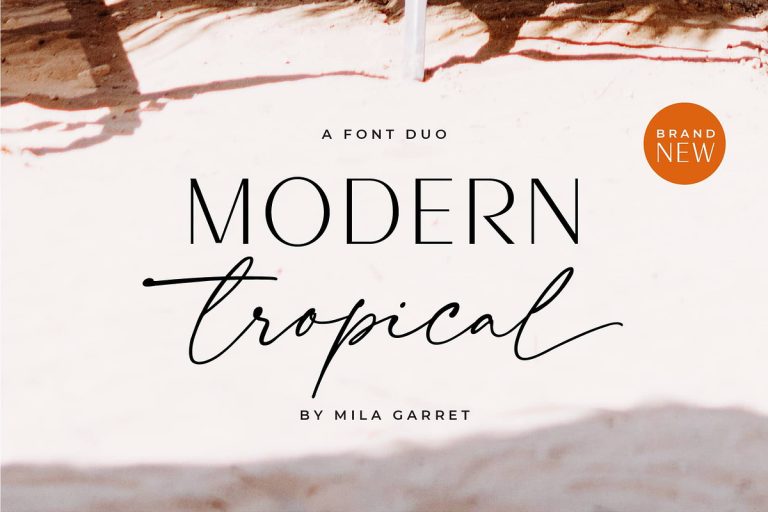
Introducing Modern Tropical Font Duo — where crisp modernity meets the soulful artistry of hand-drawn elegance. This isn’t just a font pairing; it’s a designer’s shortcut to stunning visual impact. Perfectly balanced and thoughtfully crafted, this duo delivers a luxurious,…
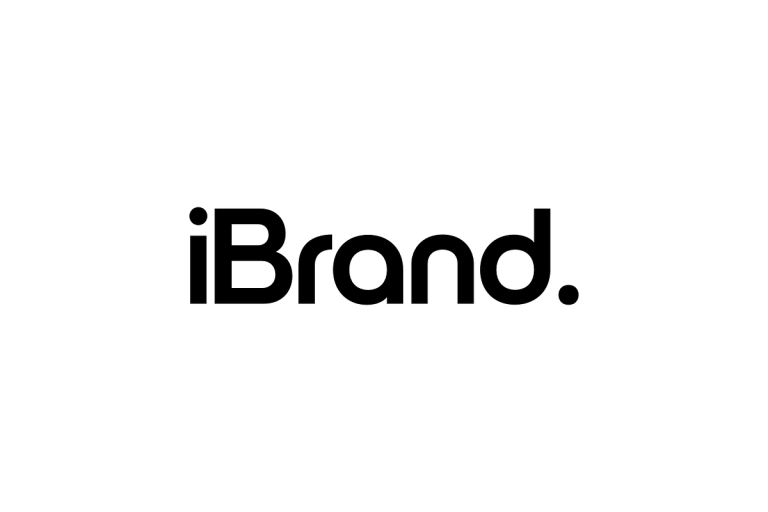
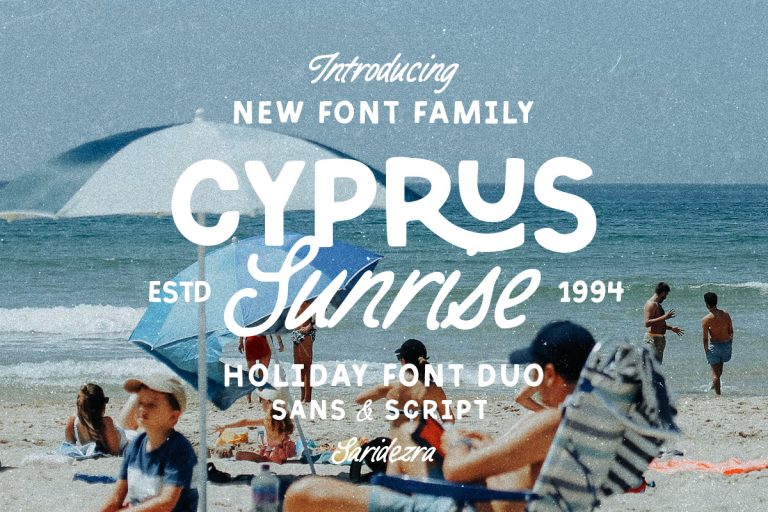iBrand – Logo Font
Introducing iBrand Font — a meticulously engineered typeface built to dominate the world of logos, branding, headers, and titling. This is not just a font; it’s a strategic design tool for creatives who demand visual authority and flawless execution. Every…
Cyprus Sunrise – Holiday Font Duo
Step into the world of raw, authentic design with Cyprus Sunrise, a hand-lettered font duo that captures the soul of handmade craftsmanship. This organic, artisanal typeface is not just a collection of letters — it’s a celebration of imperfection, movement,…
Arastin Font + Extras
Meet Arastin — a display script font that captures the soul of romantic typography with a single, continuous motion from nose to tail. Each letter glides effortlessly, its outer curves uninterrupted, creating a visual rhythm that feels alive. This fluidity…
HELIXA – Clean & Modern Font Family
Step into the future of professional typography with Helixa, a meticulously crafted neo-grotesque typeface engineered for excellence in today’s dynamic design landscape. Every stroke, curve, and serif has been refined to deliver unmatched legibility, elegant structure, and versatile performance across…
Quilt & Barley
Step into a world of timeless simplicity and warm character with Quilt & Barley, a meticulously handcrafted vintage farmhouse font collection by Bruised Goods. Designed for creators who value authenticity, this typeface captures the essence of rustic craftsmanship, evoking memories…
Le French – Organic Paired Duo
Gourmet Le French presents a cohesive type family that blends organic modernity with refined elegance. This paired duo — a contemporary sans and a complementary script — empowers designers to create cohesive visual systems with confidence. The Sans provides clean…
Gimme Extra Bold Sans Serif
Gimme Extra Bold delivers a confident, high-impact voice that channels the bold spirit of 1980s design. Built for display use, it brings strong presence to headlines, logos, and identity systems. The font’s heavy weight and tight letterforms create an unmistakable…
Brown Sugar | Modern Stylish
Brown Sugar is a refined serif typeface that brings modern style and bold personality to any creative project. Designed with clear, confident strokes and refined terminals, Brown Sugar adapts effortlessly to large display work and smaller typographic contexts. Use it…
Glitz
Glitz blends crisp geometry with subtle humanist curves to create a clean, modern voice that feels both professional and approachable. The typeface emphasizes balanced proportions, generous counters, and well-considered stroke terminals to deliver high legibility at display and text sizes.…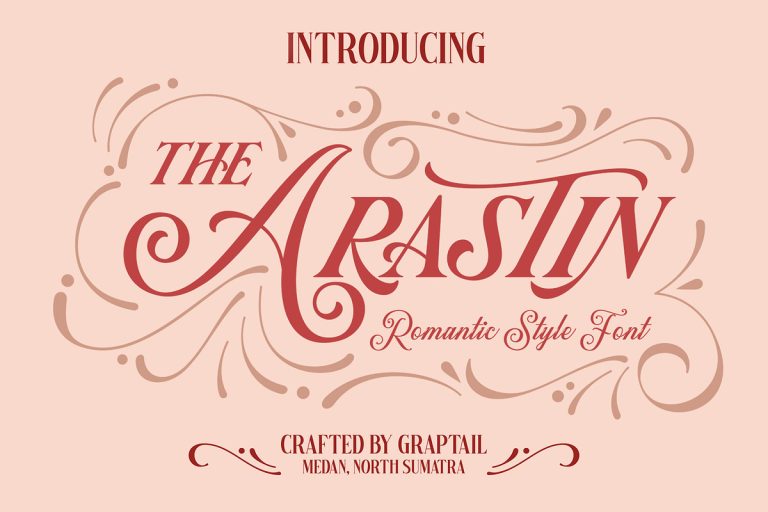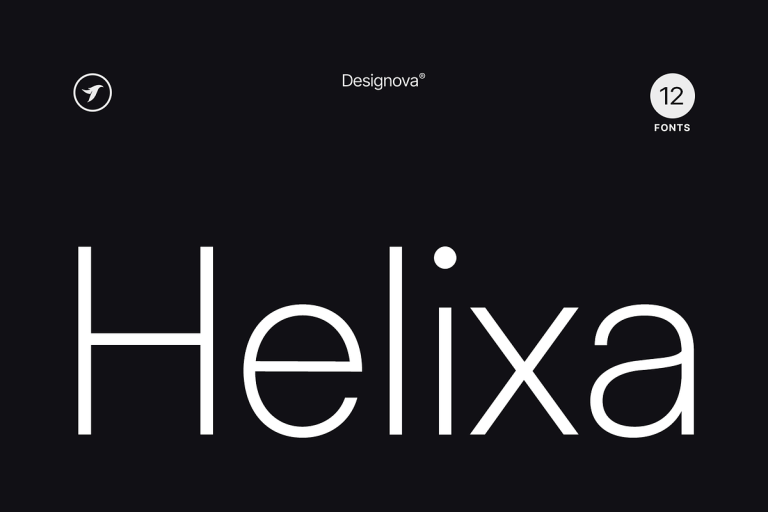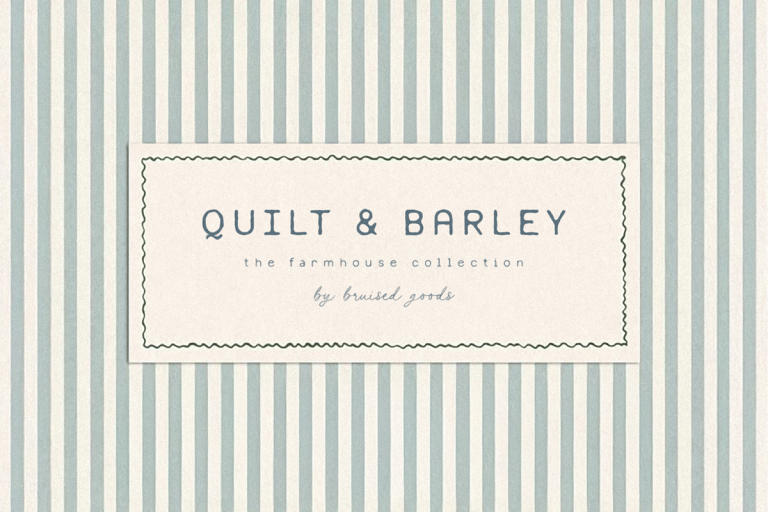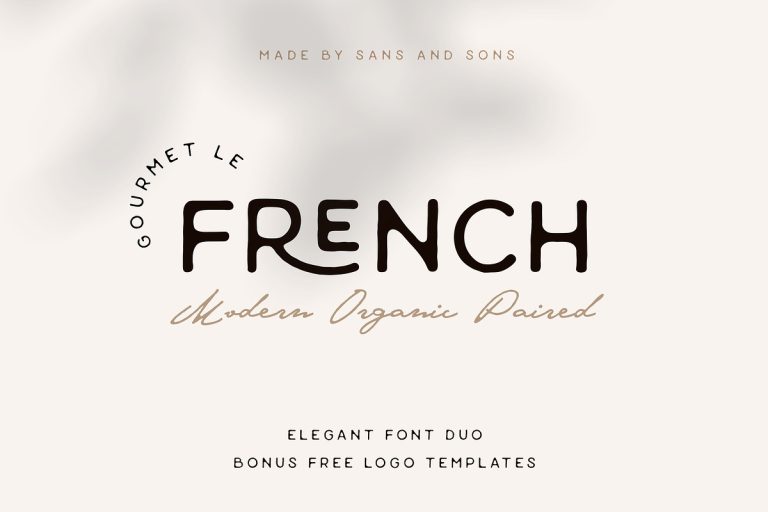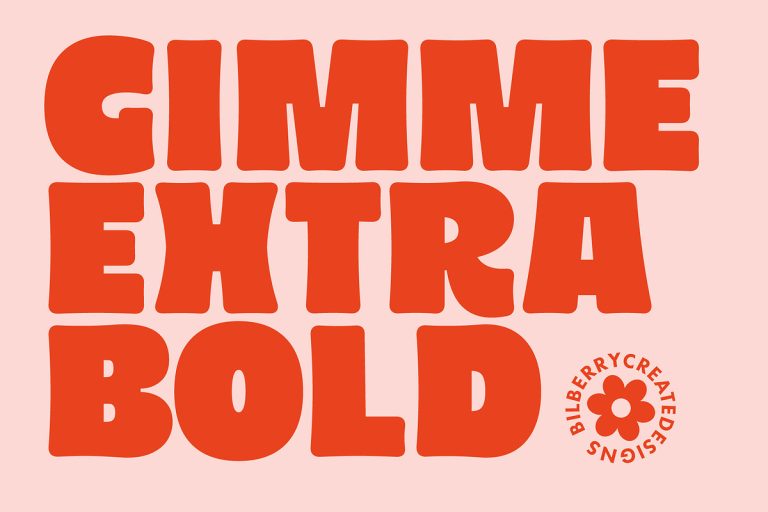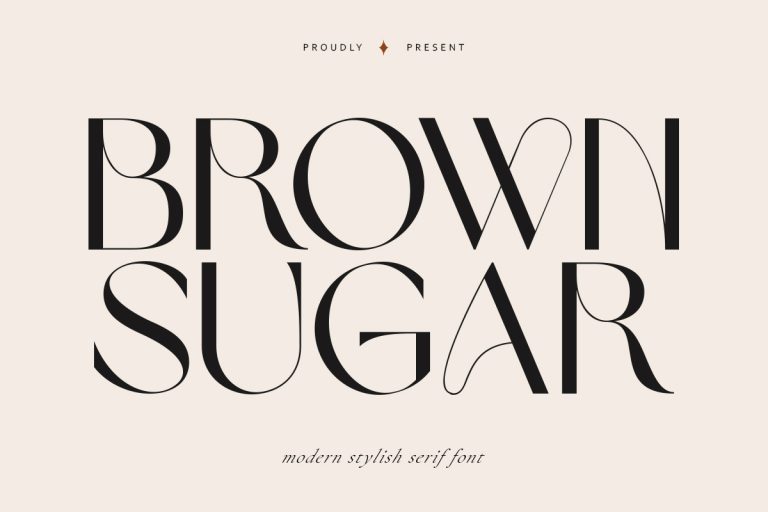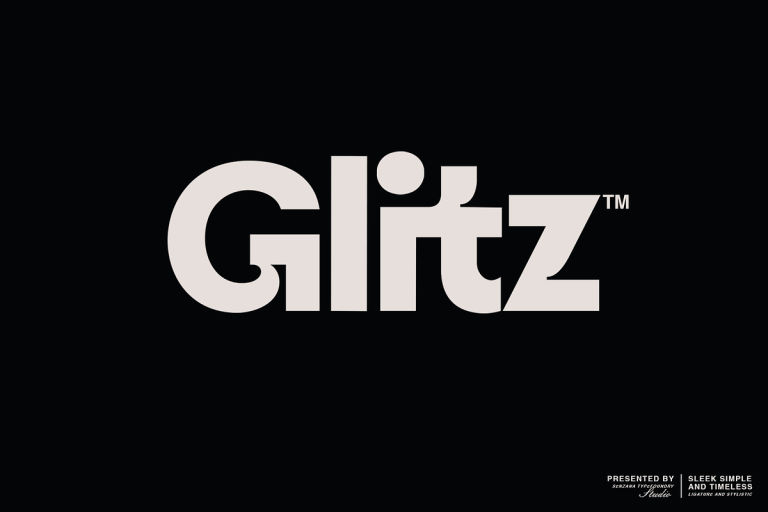